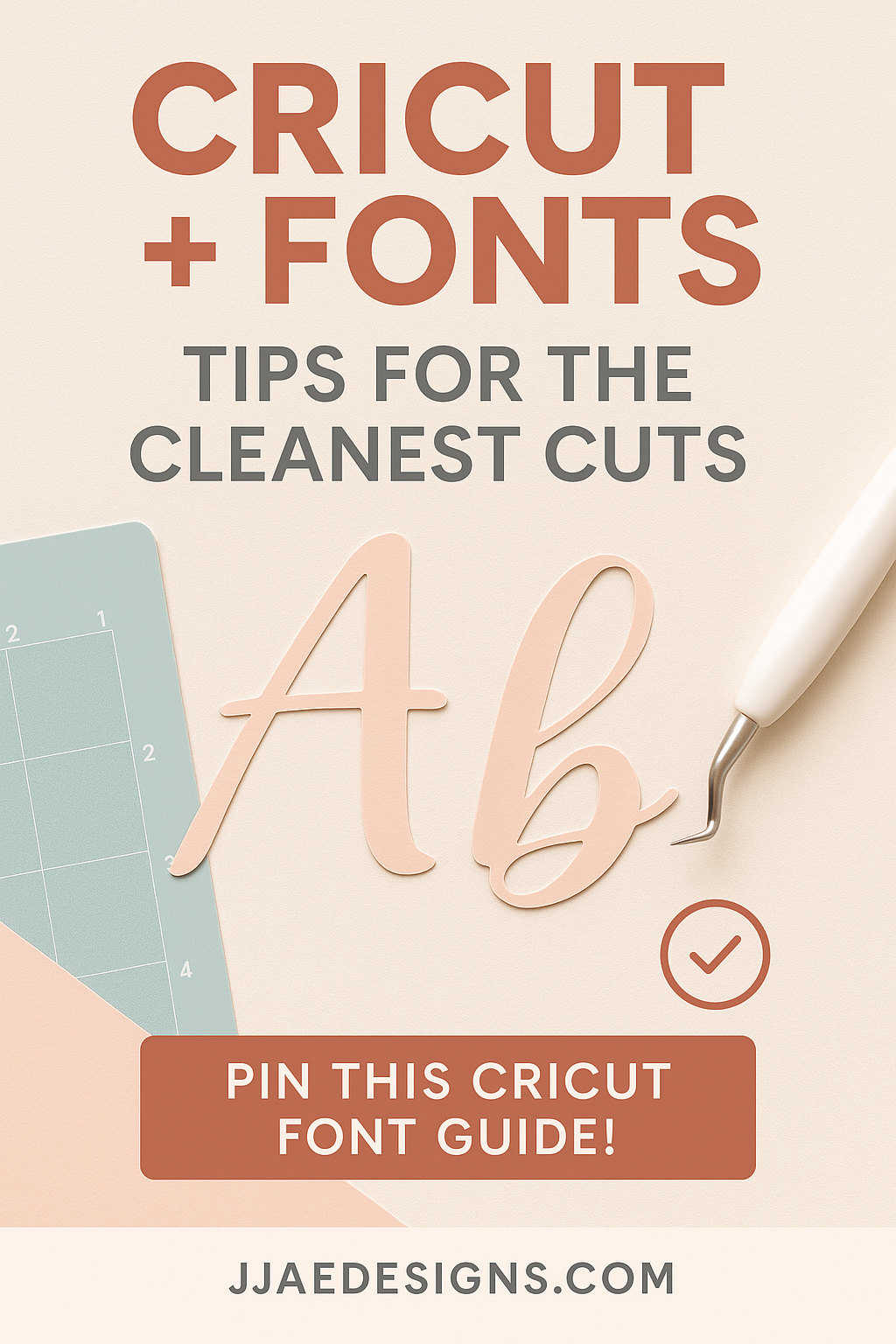
Cricut + Fonts: Tips for the Cleanest Cuts
Raise your hand if you’ve ever fallen in love with a font…
...only to watch it get butchered by your Cricut blade 😩
We’ve been there. Tiny curls, fragile loops, or overly detailed letters can turn a dreamy font into a jagged mess. But don’t worry—we’ve learned a few tricks to help you get clean, professional-looking cuts every time.
Here’s how to make your fonts Cricut-friendly (without sacrificing style):
1. Pick the Right Font Style
Let’s start with the basics—not all fonts are designed to be cut.
If you’re crafting with Cricut, look for fonts that are:
- Thick and bold (so the blade has room to move)
- Smooth and simple (no spiky edges or pixelated lines)
- Connected scripts that weld easily in Design Space
- Monoline fonts (single-width strokes = easier cuts)
2. Weld, Don’t Slice
If you’re using a script font, those letters probably overlap—which is great for design but confusing for Cricut.
➡️ Pro tip: Always weld your text before cutting!
Welding merges overlapping letters into one solid shape, so the blade cuts it as a smooth word instead of each letter separately.
3. Increase Letter Spacing When Needed
If your font looks a little too tight in Design Space, bump up the letter spacing. Too-close letters can cut into each other or lift during the cut.
Bonus: Adjust spacing before you weld—it’s way easier to fix while the text is still editable.
4. Watch Your Size
Cricut blades are pretty magical, but they’re not miracle workers. Fonts with tiny loops or swashes can get torn up when cut small.
Rule of thumb:
- Cut delicate fonts no smaller than 2–3 inches wide
- For ultra-clean results, size up whenever possible
5. Always Test Cut First
Don’t waste your good vinyl! Test your font with a small trial cut using scrap material before committing.
You’ll catch any:
- Weeding nightmares
- Fragile points
- Or odd details that disappear when cut too small